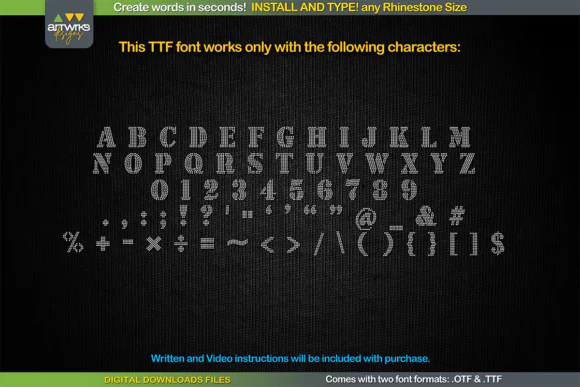
RS03 Seal Bold Rhinestone Template TTF Font | Typeable Crystal Hotfix Bling Font for Cricut, Silhouette, Rhinestone T-Shirts, HTV Transfers & Custom Apparel
Create sparkling custom text designs in seconds with RS03 Seal Bold Rhinestone Template TTF Font, a bold typeable rhinestone template font made for crystal hotfix transfers, bling lettering, heat transfer vinyl projects, and custom apparel designs. This digital font allows you to simply install the font, type any word, adjust the size, and create rhinestone-ready lettering for your craft or business projects.
RS03 Seal Bold is perfect for crafters, Cricut users, Silhouette Studio creators, apparel sellers, boutique owners, small businesses, and rhinestone designers who want to make custom names, team shirts, event shirts, cheer apparel, dance outfits, birthday shirts, school spirit wear, and personalized merchandise.
Each letter is designed to be filled with rhinestone placement points or arranged for heat transfer vinyl, making it easy to customize your designs with text. This font can be used with different rhinestone sizes including SS6, SS10, SS16, and SS20, depending on your preferred project setup.
• Typeable rhinestone template font
• Bold seal-style lettering
• Works for rhinestone and HTV designs
• Supports multiple rhinestone sizes
• Designed for quick custom word creation